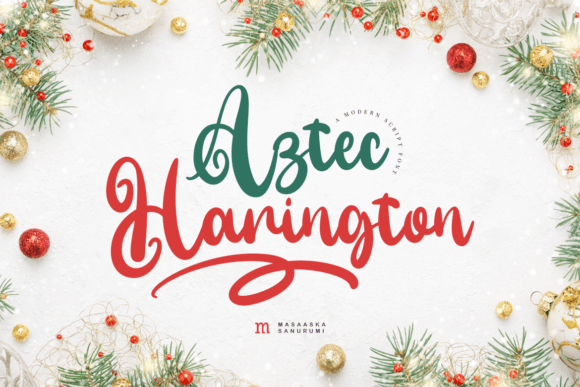
The Aztec Harington Font: A Modern Script Font for Creative Minds
I’ll never forget the time I was working on a DIY project, pouring my heart and soul into creating a beautiful piece of art. But as I was about to add the final touches, I realized I was stuck with a font that just didn’t cut it. The letters looked clunky, and the overall design felt flat. That’s when I stumbled upon the Aztec Harington font, and it completely transformed my project. In this article, I’ll share my love for this beautiful and modern script font, its features, and how to make the most of it in your creative projects.
An Honest Review of Aztec Harington
• ✨ Simplicity and style: Aztec Harington is defined by its clean lines and elegant curves, making it perfect for a wide range of creative projects.
• ✅ Versatility: Whether you’re designing for Instagram, creating calligraphy scripts for DIY projects, or working on a professional design brief, this font adapts seamlessly.
• 💫 Unique character: Aztec Harington has a distinct personality that adds a touch of sophistication to any design.
While Aztec Harington is an amazing font, there are a few things to keep in mind:
• 🤔 Limited use of uppercase letters: While the font does include uppercase letters, they might not be as stylized as the lowercase letters.
• ⚠️ Glyph limitations: Some users have reported that the font could benefit from a wider range of glyphs and special characters.
4. Experiment with OpenType features, such as Stylistic Alternates and Swashes, to add more flair to your design.
The Story Behind Aztec Harington
Aztec Harington was designed with the goal of creating a modern script font that combines simplicity and style. The designer, inspired by the elegance of ancient Aztec art and the playfulness of modern calligraphy, crafted a font that would be both versatile and beautiful.
Q: What is Aztec Harington?
Aztec Harington is a modern script font defined by simplicity and style. It’s perfect for a wide range of creative projects, from Instagram designs to DIY calligraphy scripts.
Q: Is Aztec Harington suitable for professional design work?
Absolutely! Aztec Harington’s unique character and elegant curves make it an excellent choice for professional design projects, such as branding, advertising, and packaging.